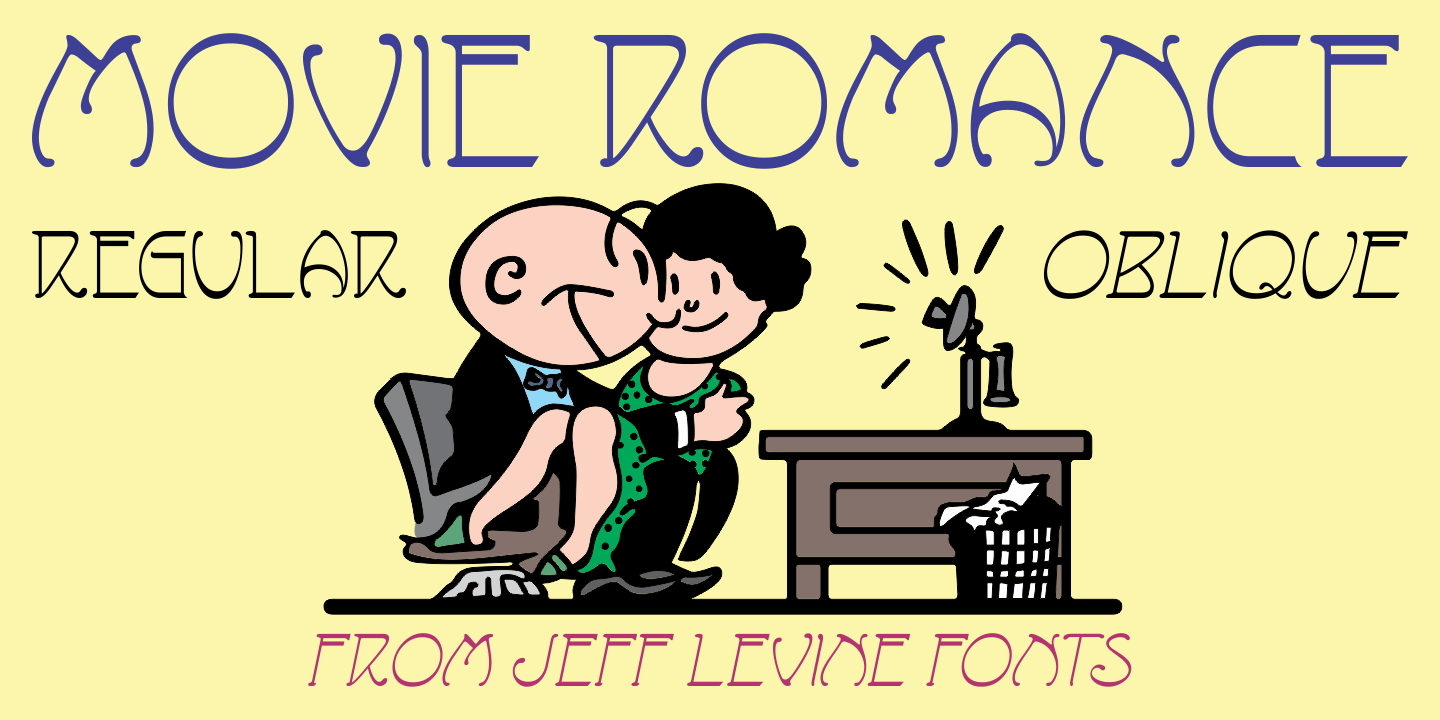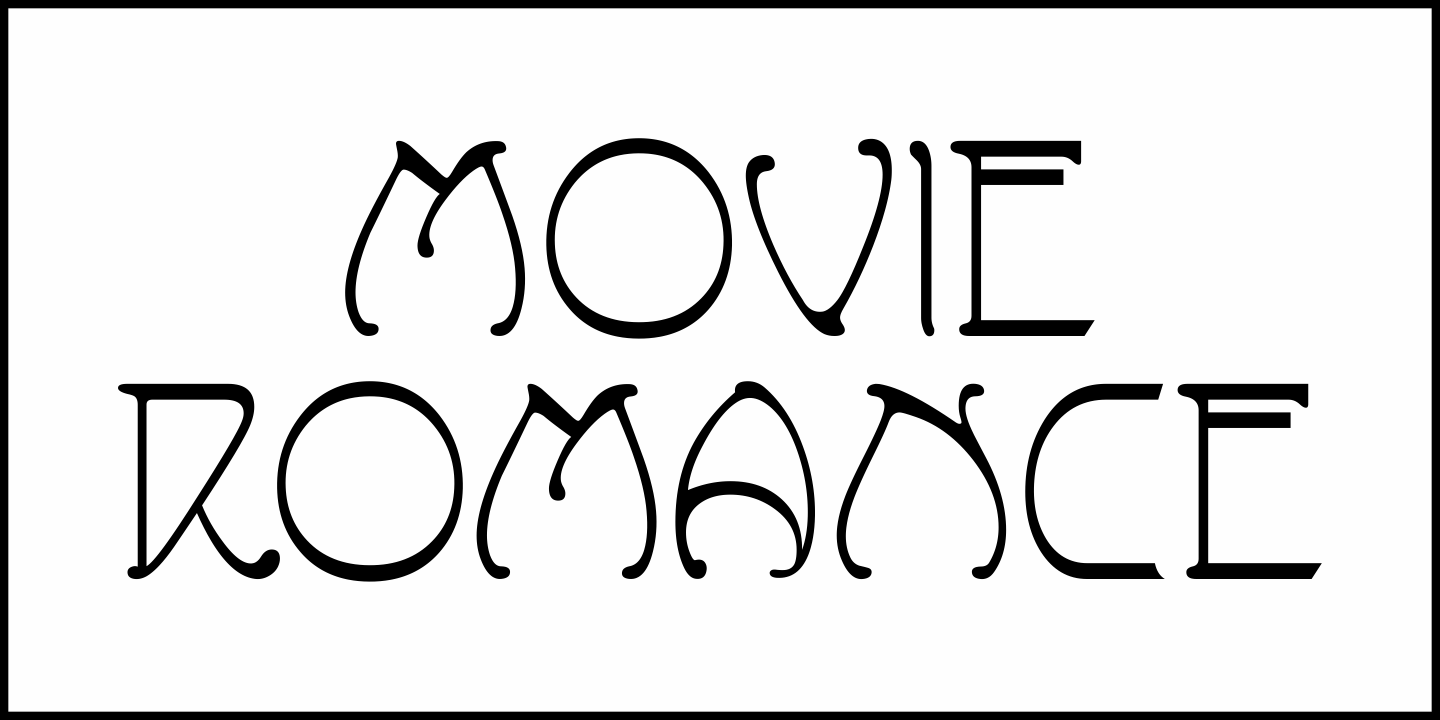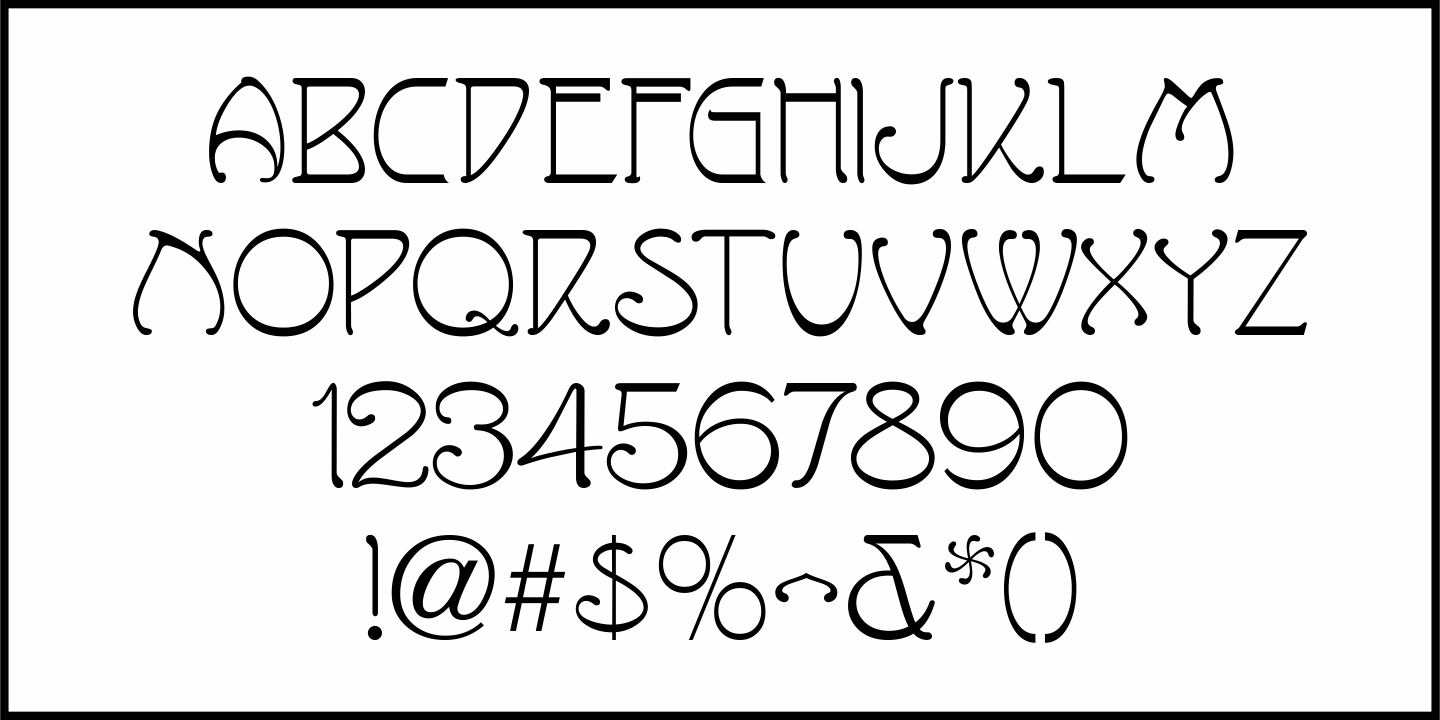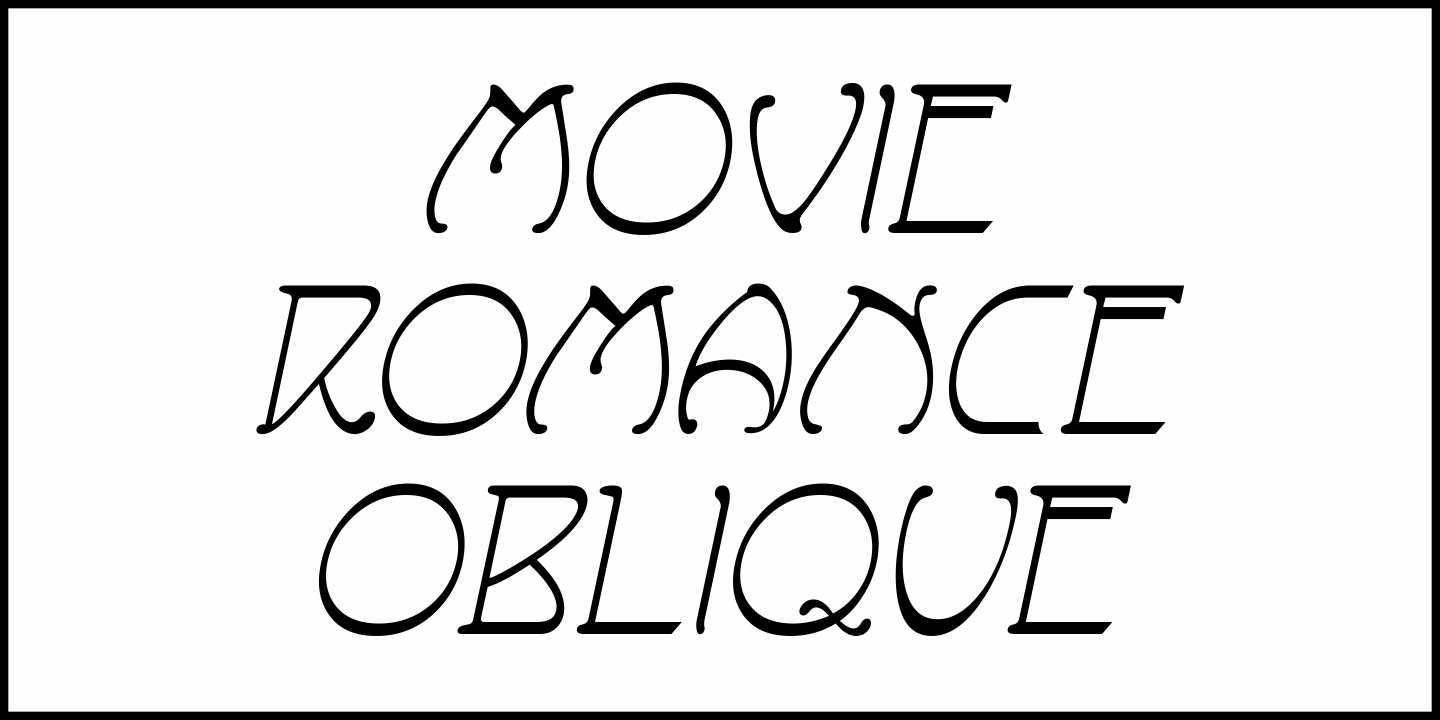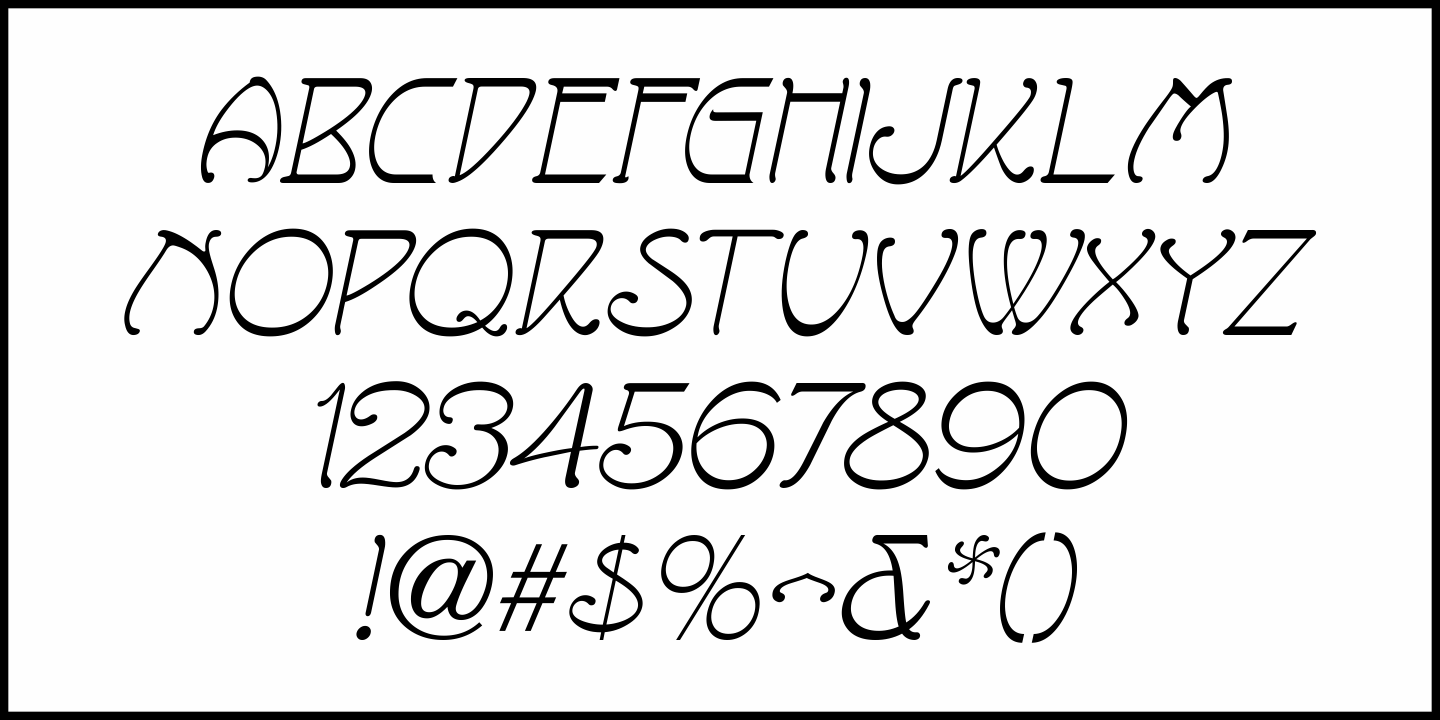
Movie Romance
Some article headlines hand lettered within the pages of a January, 1918 issue of the Spanish language movie fan magazine Cine-Mundial (Movie World) were rendered in a lovely Art Nouveau design.
This has been recreated as a digital typeface called Movie Romance JNL, and is available in both regular and oblique versions.